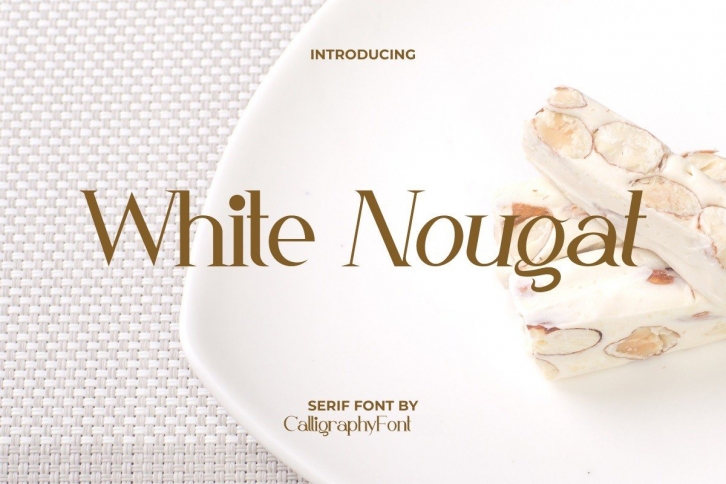
White Nougat is a serif font family with classic and stylish styles. The characteristics of the font are classic and sophisticated. The font will be perfect for logos, brandings, headlines, signage, etc.Â